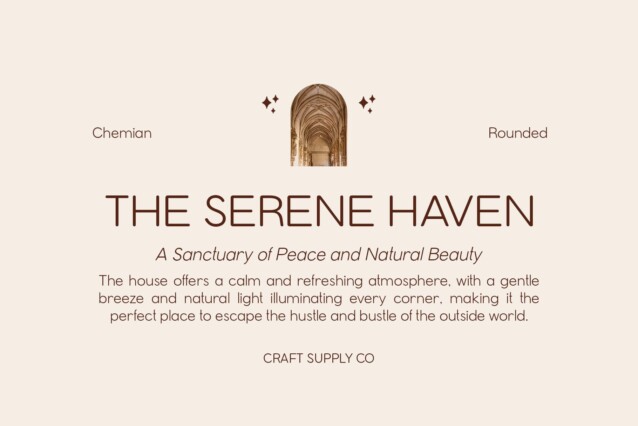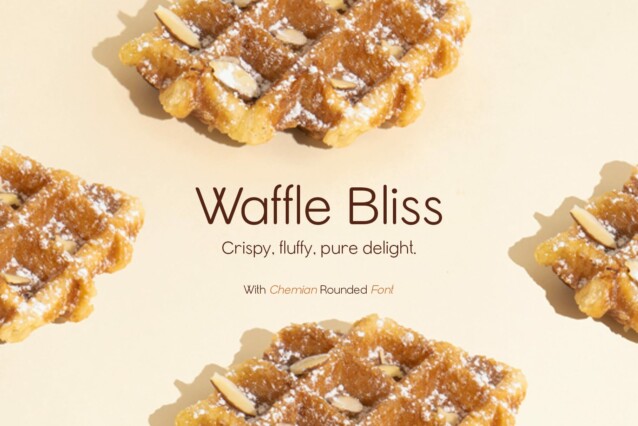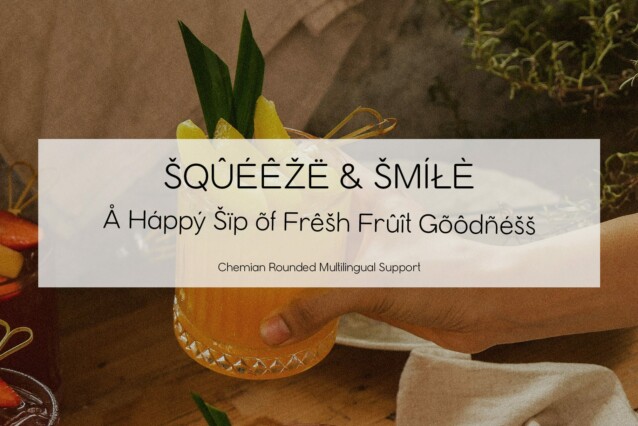
Chemian Rounded Font
Chemian Rounded Font is a modern sans-serif font that blends minimalist geometric shapes with soft, rounded curves. The font’s clean and simple design creates a sophisticated yet friendly appearance, offering the perfect balance between professionalism and approachability. The rounded edges add warmth to the otherwise sleek, geometric structure, ensuring a versatile style suitable for various contemporary design applications.